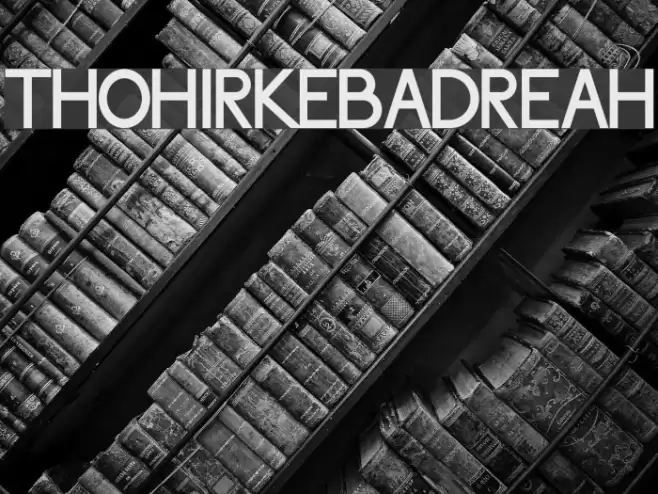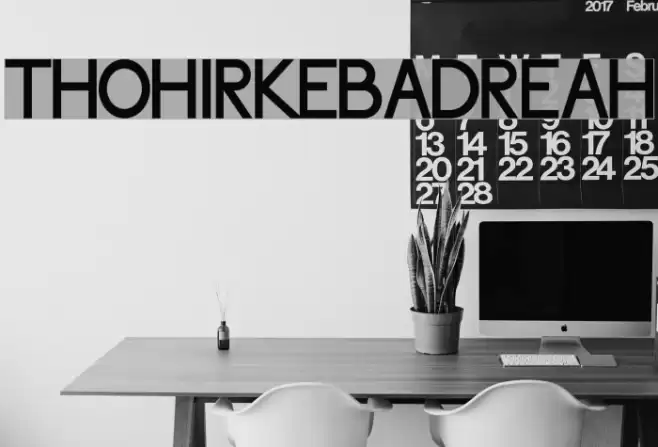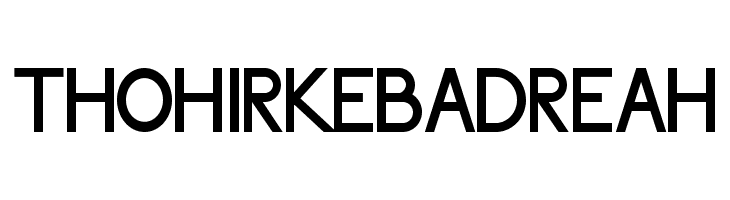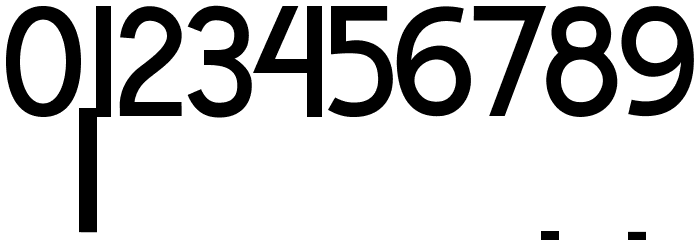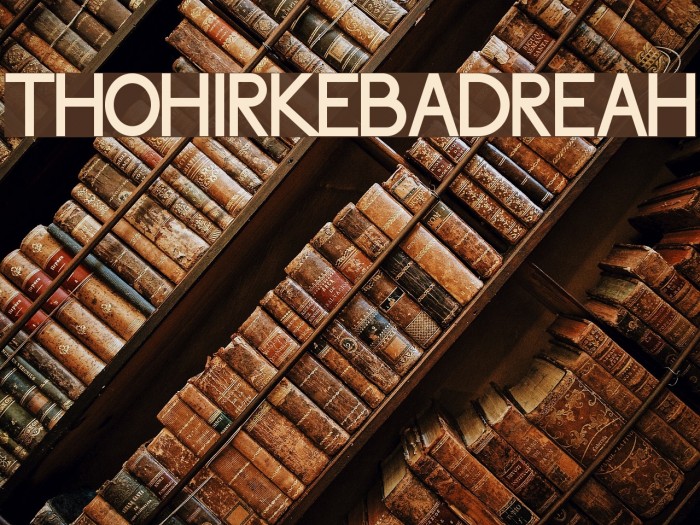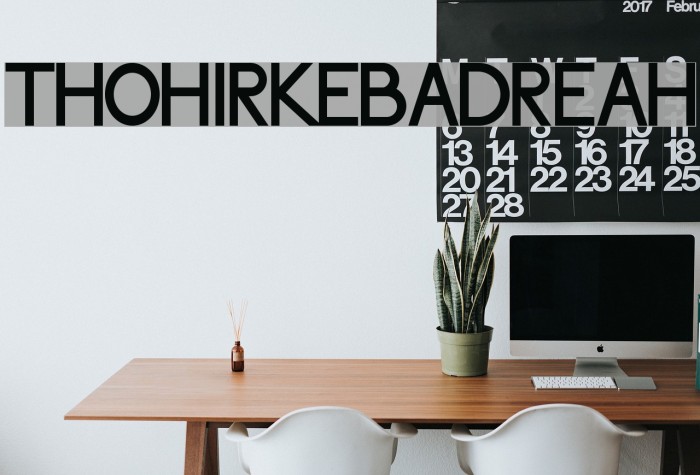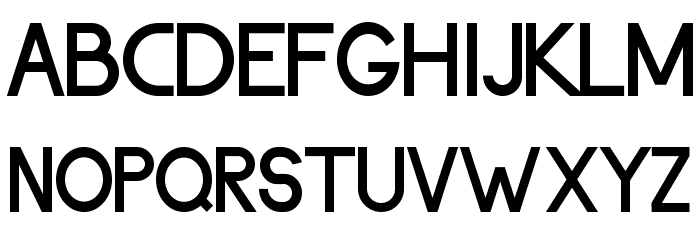
ThohirKeBadreah Font
ThohirKeBadreah Description
This font features a clean and modern sans-serif design with uniform stroke widths, giving it a sleek and contemporary appearance. The characters are well-proportioned and maintain a consistent height, which enhances readability. The numerals are distinct and clear, making them suitable for various applications. The overall design is minimalistic, with no unnecessary embellishments, which contributes to its versatility across different media. The font's simplicity and clarity make it ideal for both digital and print use, ensuring legibility at various sizes.
A modern, clean sans-serif font with uniform strokes and excellent readability from Uncategorized fonts.
- Proposed Projects: Ideal for branding, web design, advertising, and editorial projects where clarity and modernity are key.